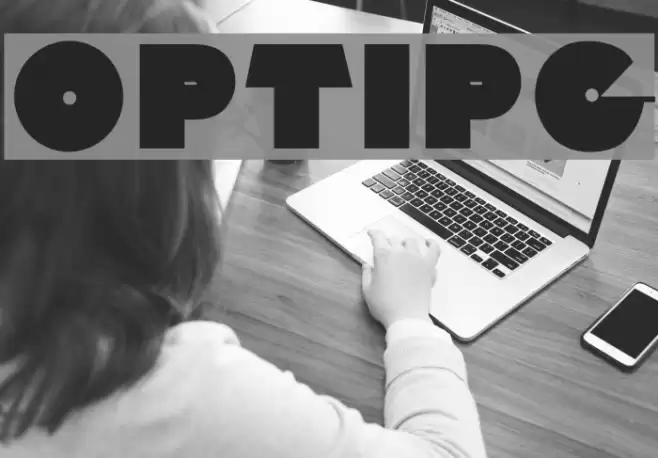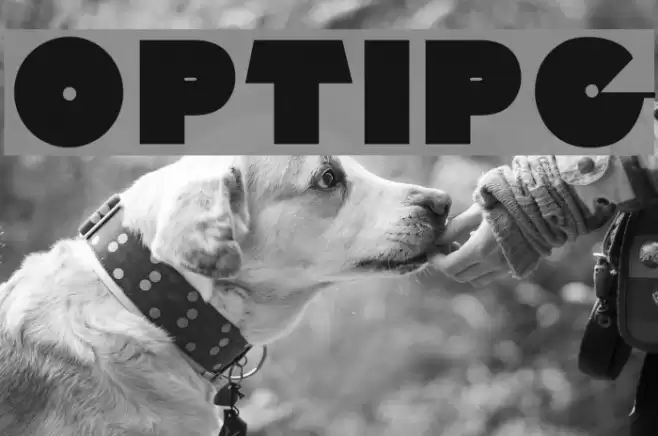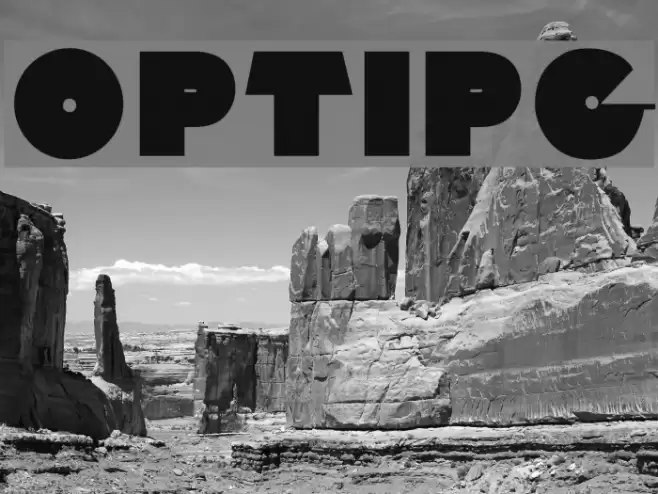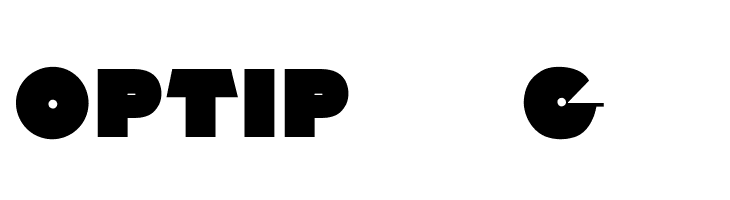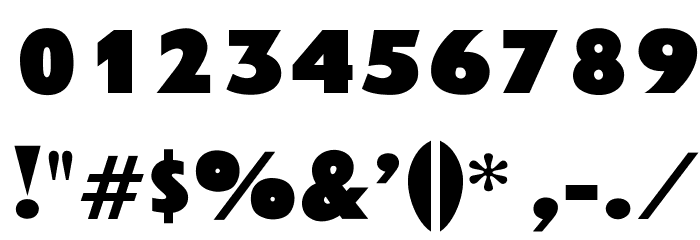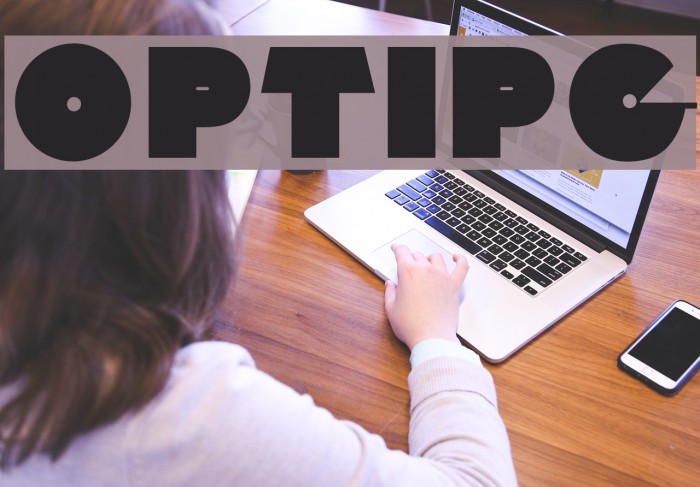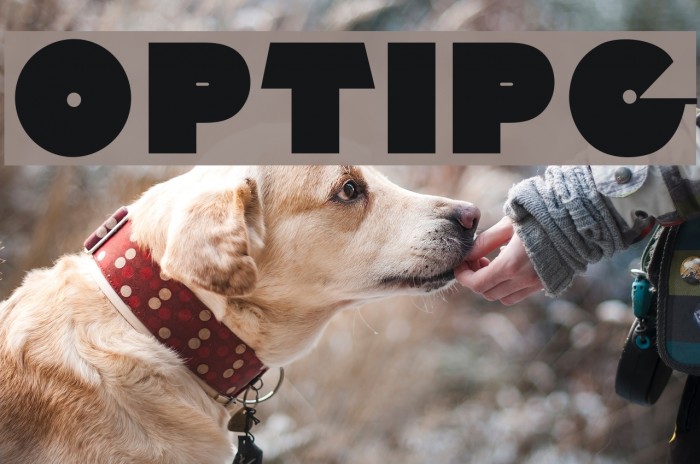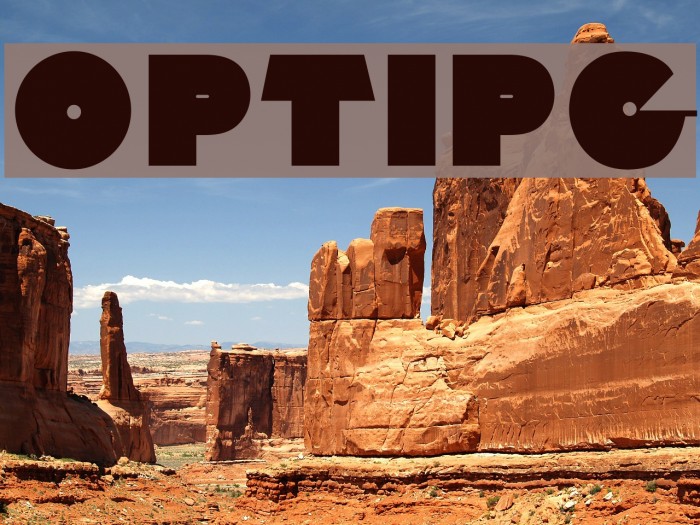
OPTIPalisadeGraphic Font
OPTIPalisadeGraphic Description
This font features bold, geometric shapes with a strong presence. The characters are constructed with sharp angles and a consistent weight, giving it a modern and assertive look. The uppercase letters are particularly striking, with a uniform height and width that create a cohesive appearance. The numbers and special characters maintain the same bold style, ensuring consistency across all elements. This font's design is ideal for making a statement, with its high impact and clear readability.
A bold, geometric font with a modern and assertive style from Uncategorized fonts.
- Proposed Projects: Ideal for branding, posters, headlines, and any project requiring a strong visual impact.